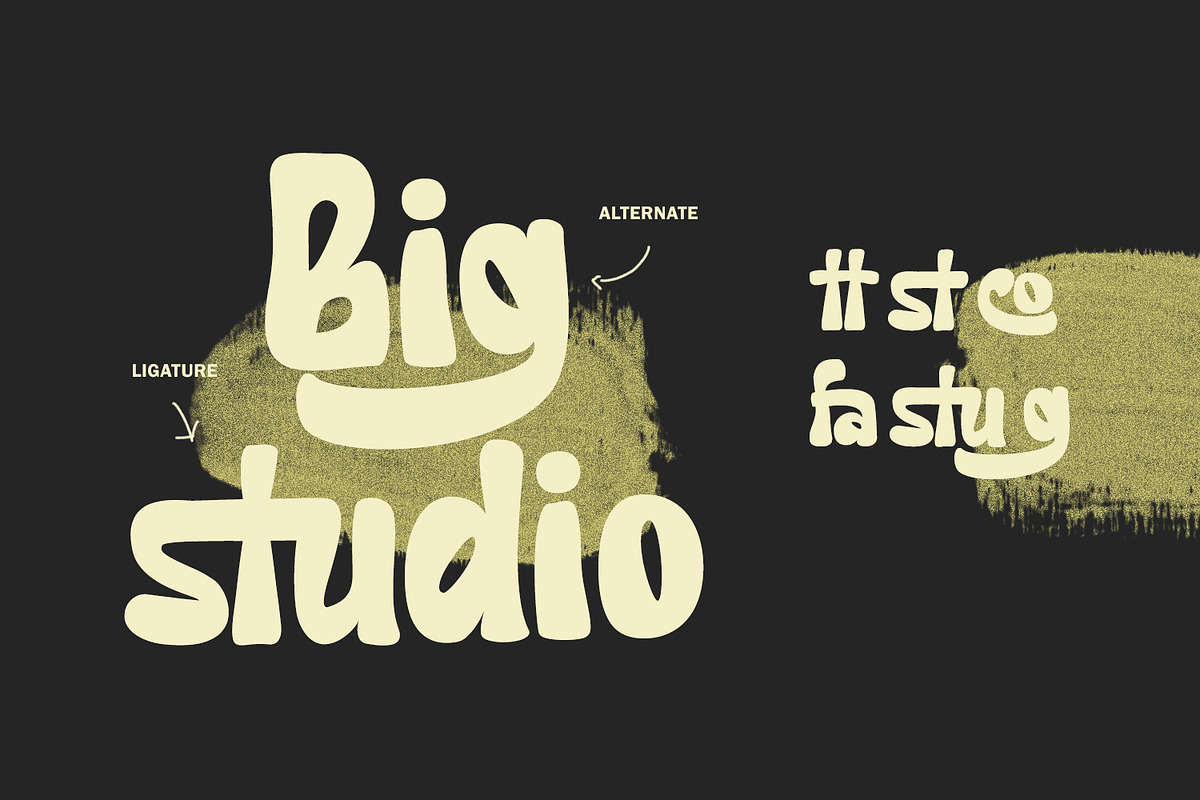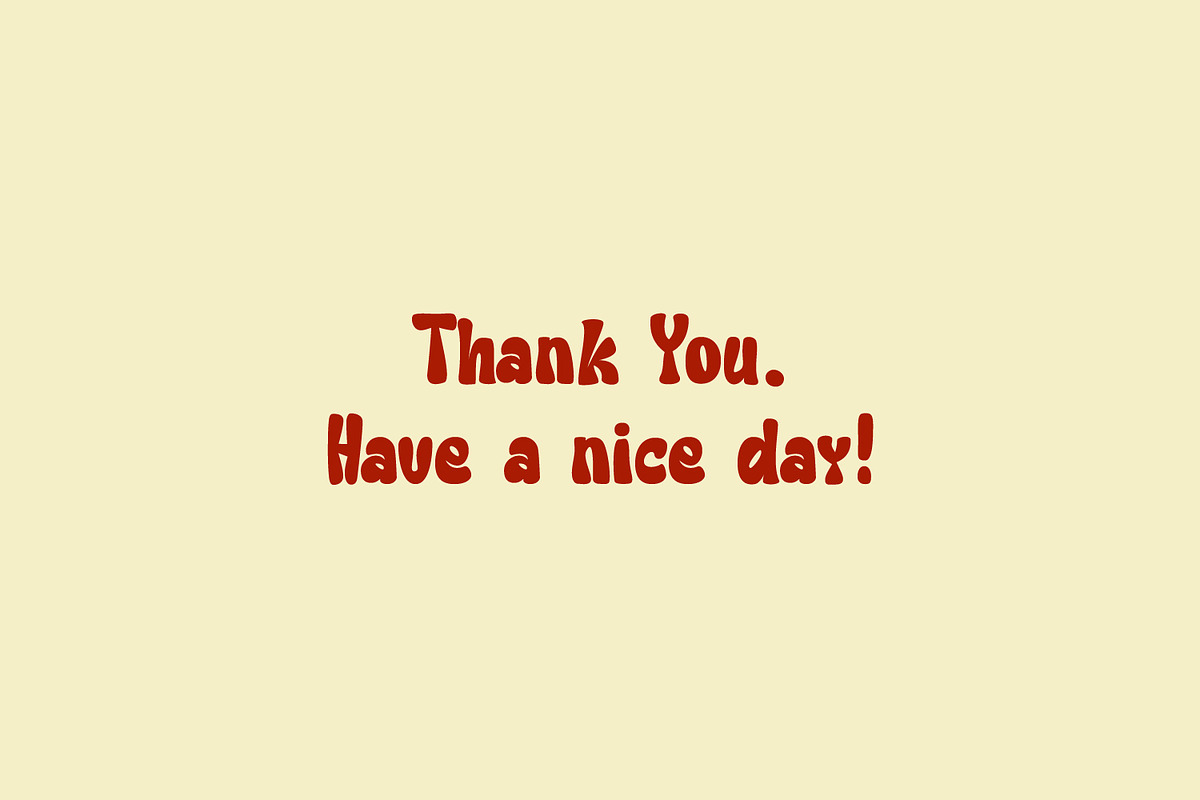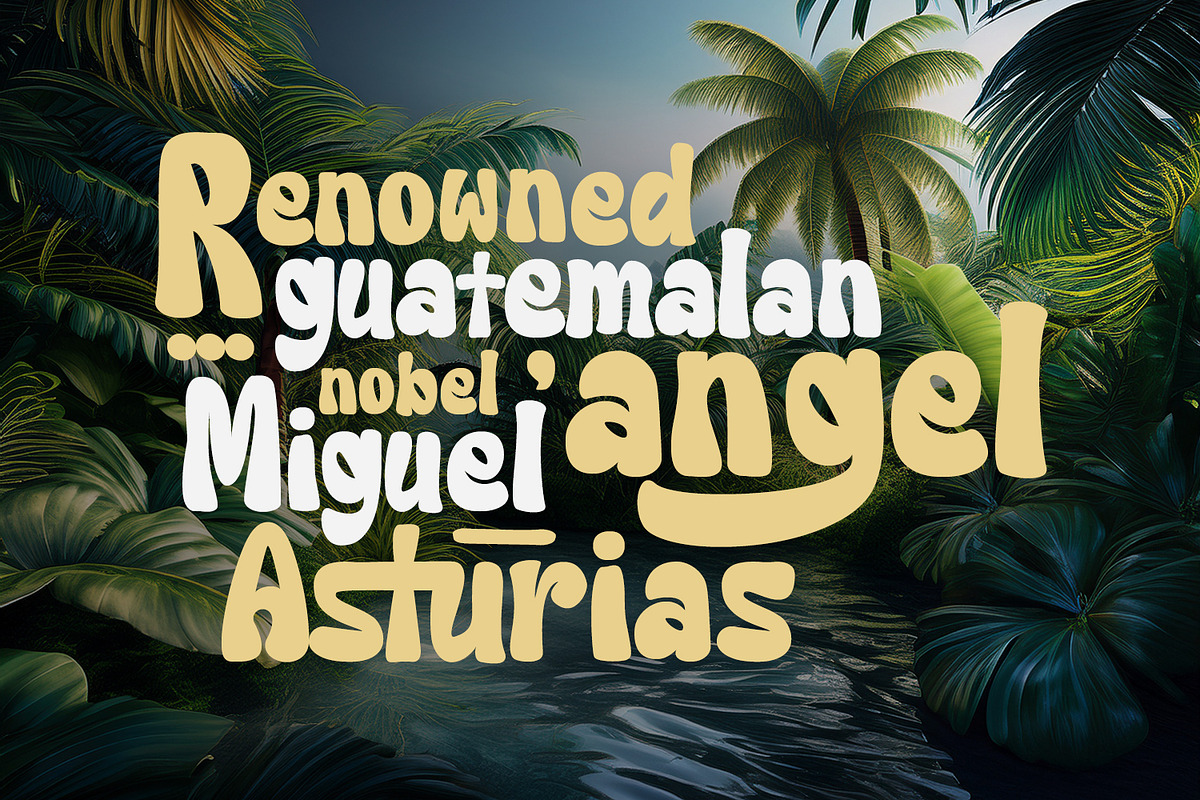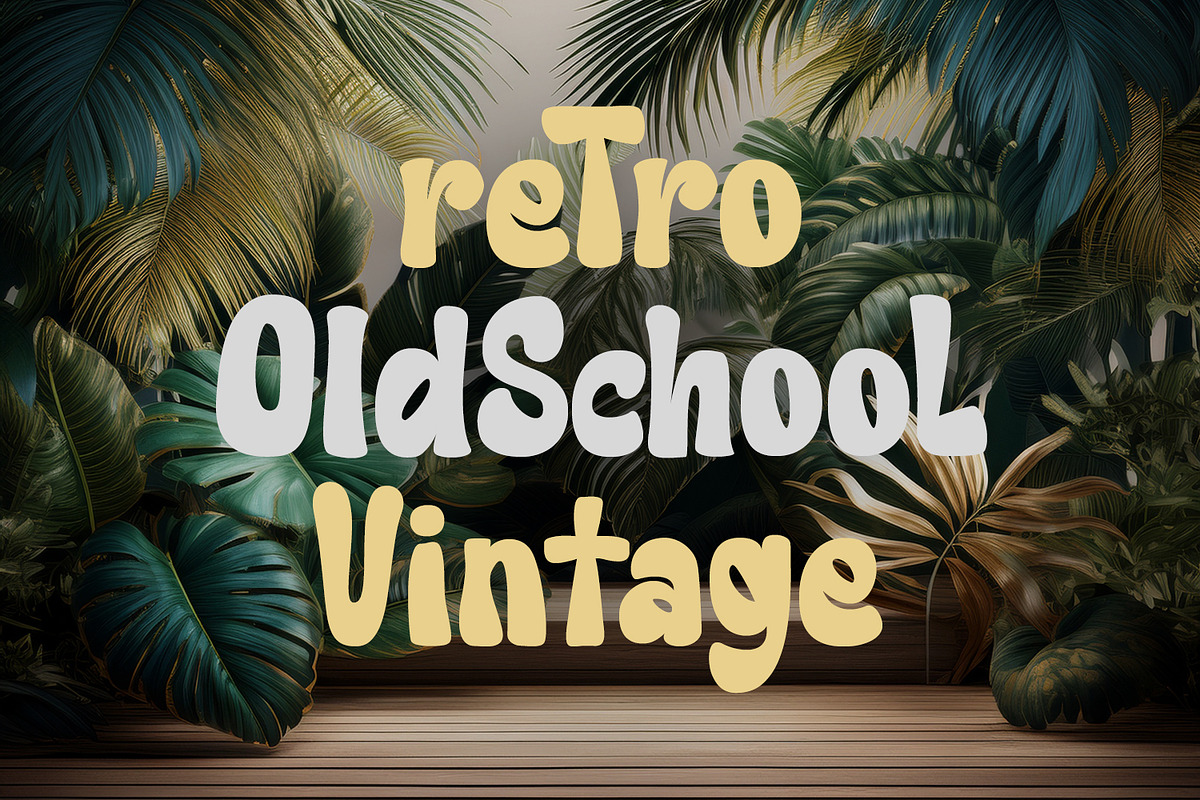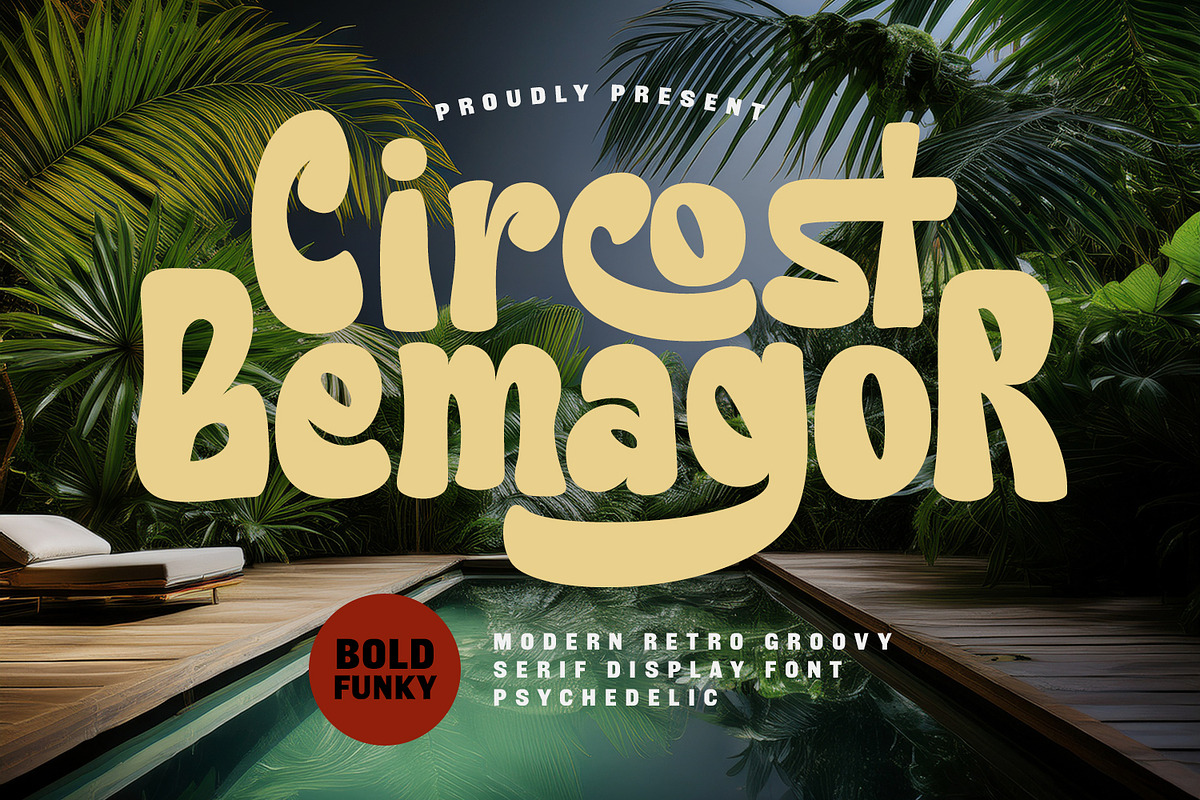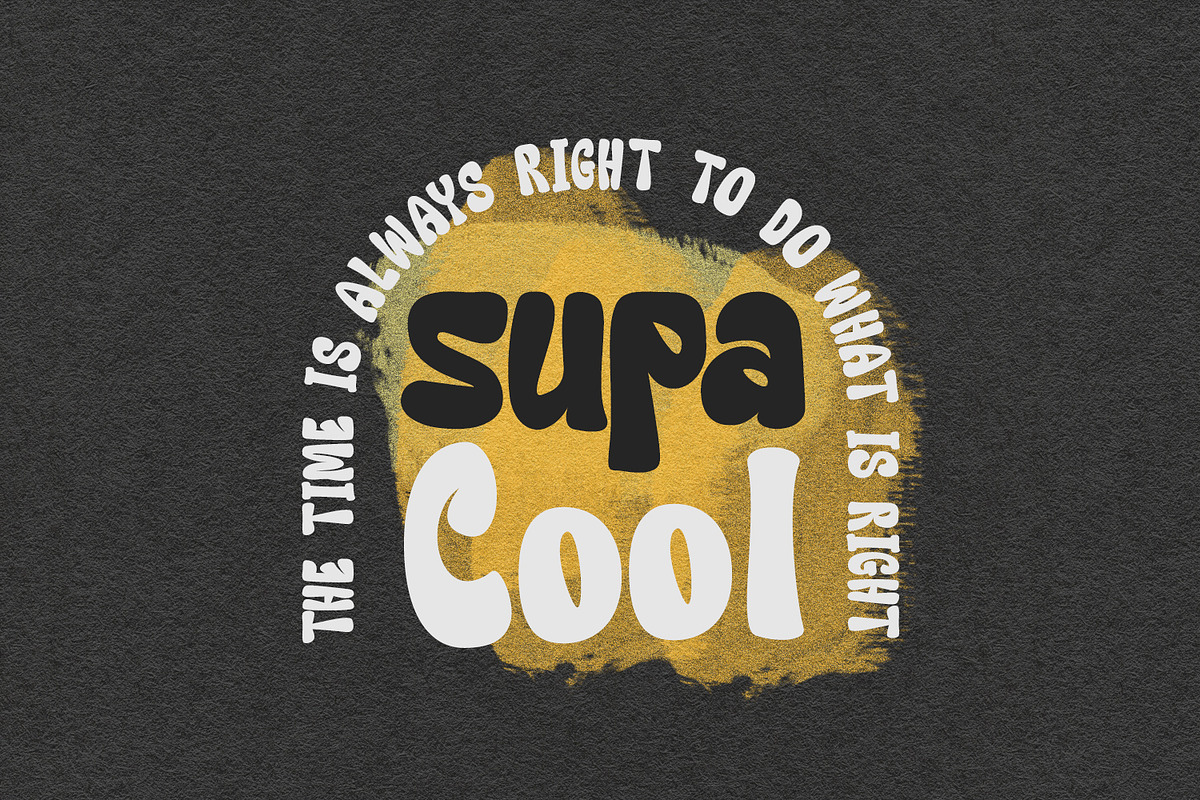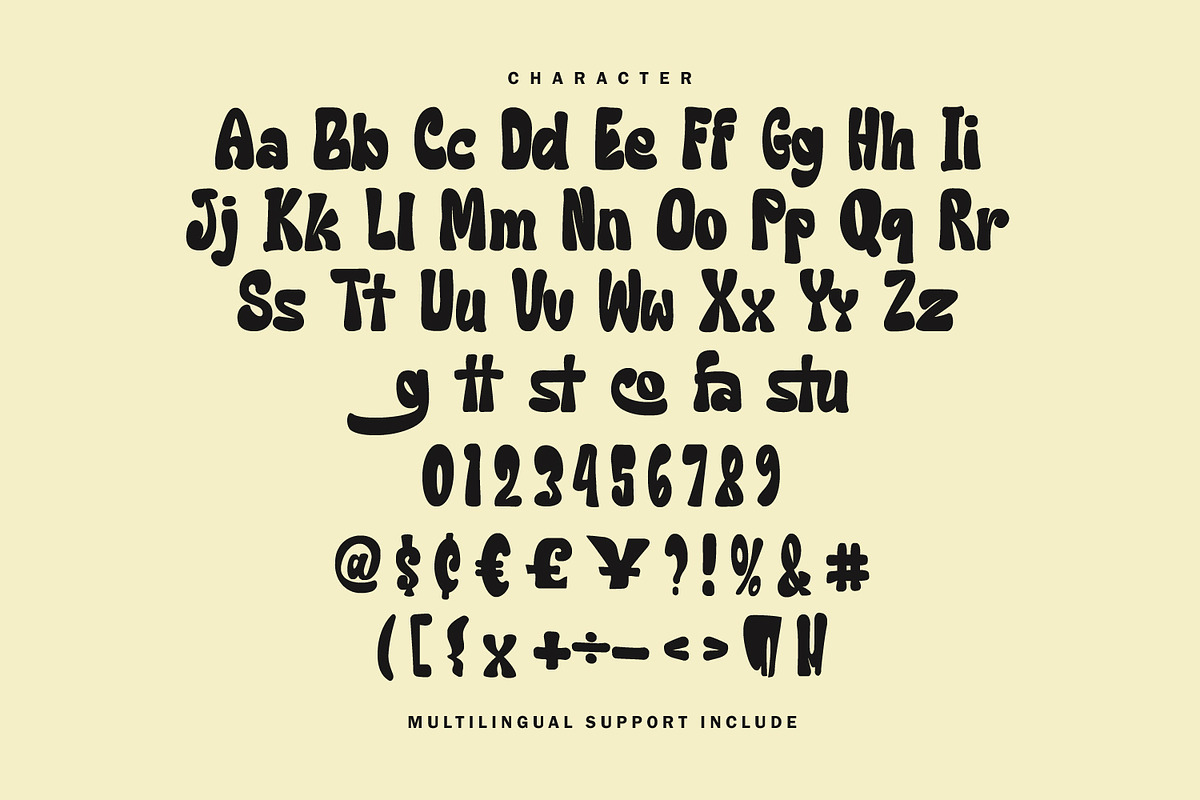
Circost Bemagor Modern Retro Groovy
Step back into the vibrant era of the 70s with Circost Bemagor, a bold display font that perfectly blends modern aesthetics with retro psychedelic vibes. Characterized by its fluid, melting curves and playful bubbly letterforms, this font captures the essence of the groovy movement with a contemporary twist.
It features unique ligatures and stylistic alternates that add a custom, hand-lettered feel to any project. Whether you are designing funky posters, vintage-inspired branding, summer-themed social media graphics, or eccentric book covers, Circost Bemagor brings a high-energy, nostalgic rhythm to your typography.
- Full character set
- Numbers, Punctuation, and Symbols
- Ligature and alternates for a natural handwriting flow